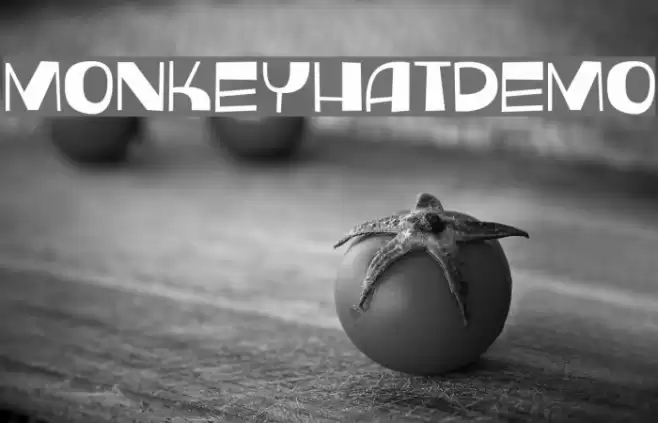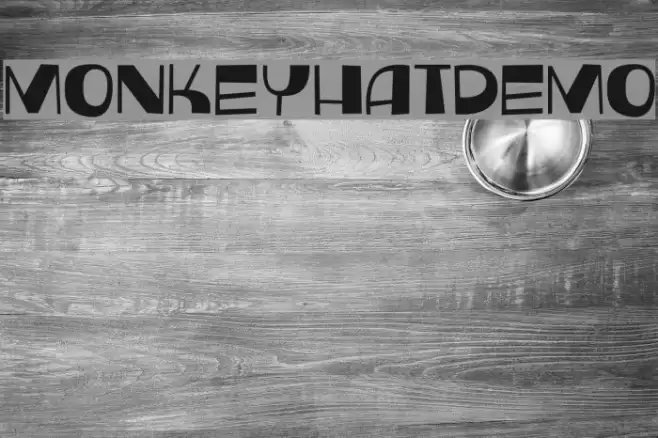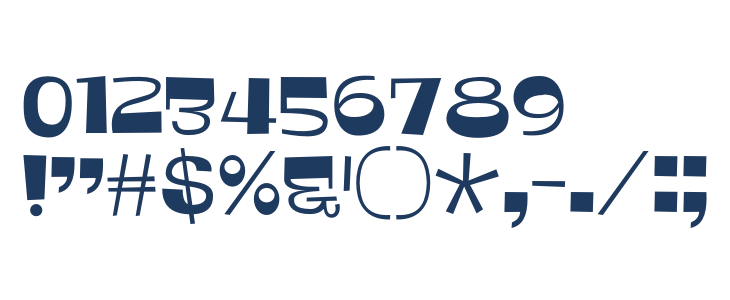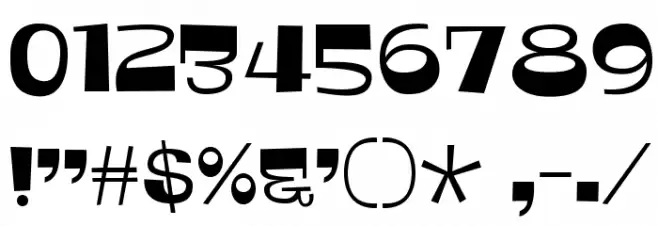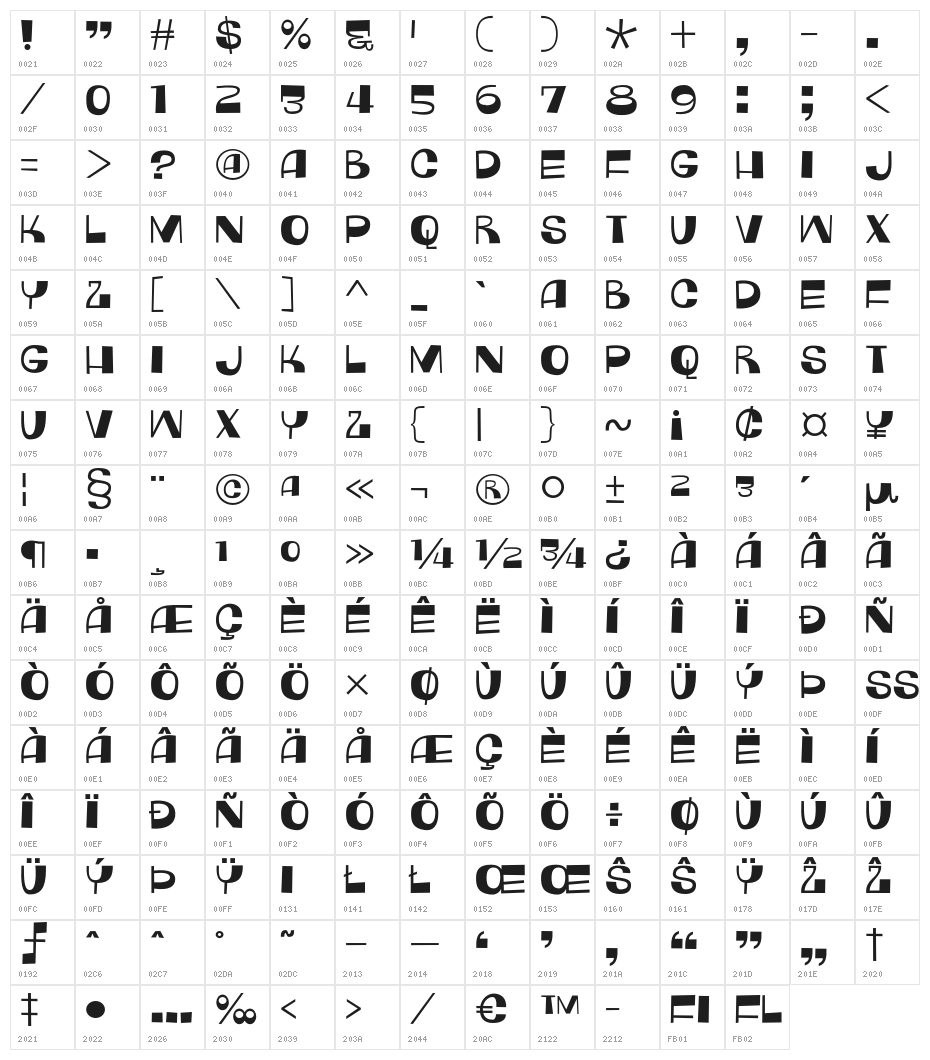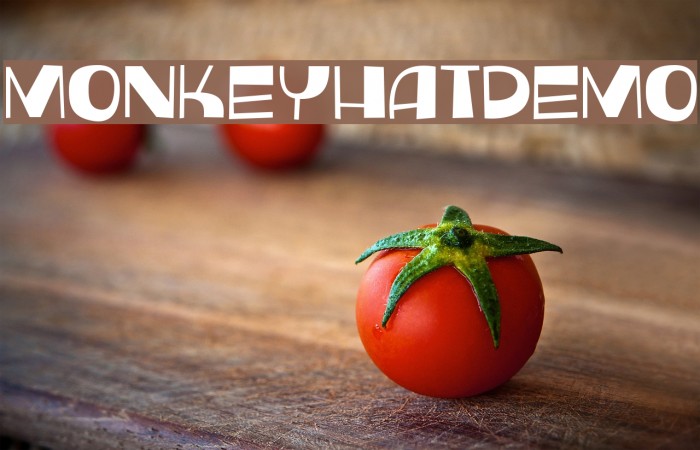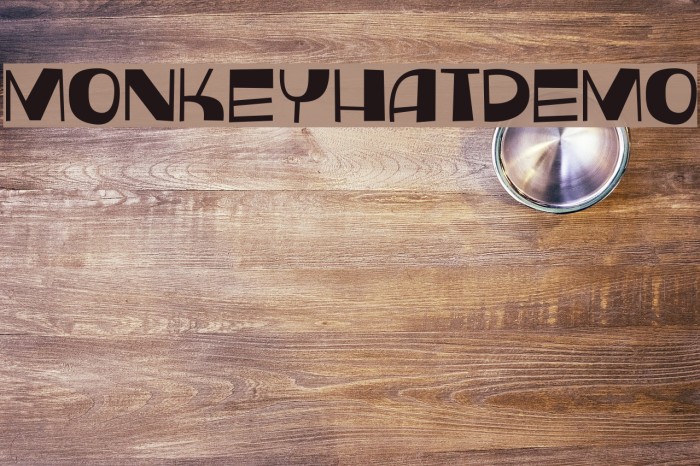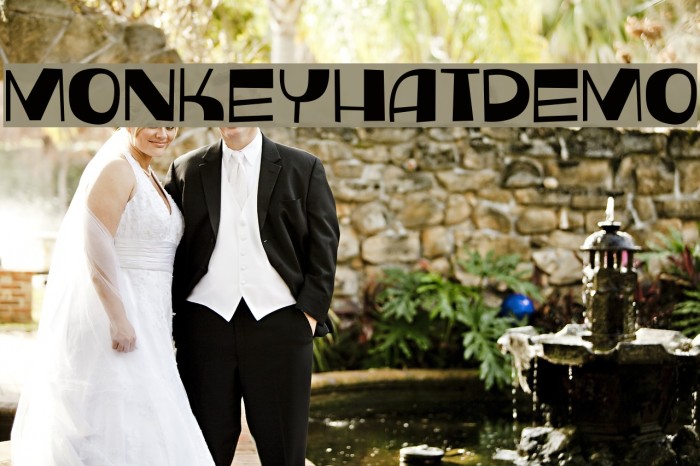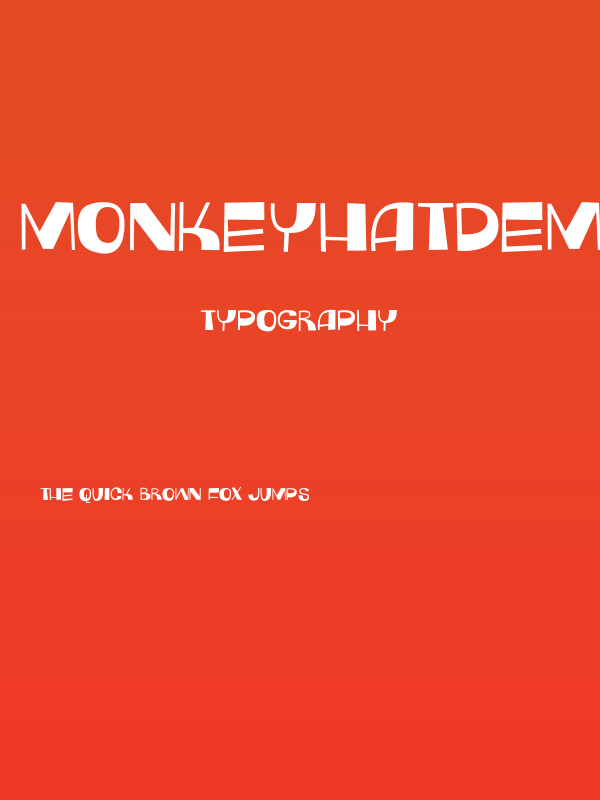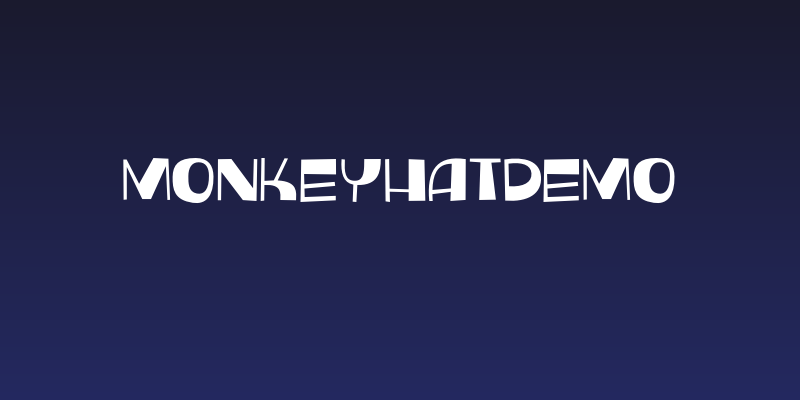
MonkeyHatDEMO Font
MonkeyHatDEMO Description
This font features a playful and bold design with a unique, quirky style. The letters are characterized by their exaggerated curves and varying stroke widths, creating a dynamic and lively appearance. The uppercase letters have a distinct, almost cartoonish quality, while the lowercase letters maintain a consistent whimsical flair. The numbers and special characters follow the same playful theme, making this font ideal for creative and informal projects. Its boldness and distinctiveness make it stand out, while the varying stroke thickness adds an element of surprise and fun.
A playful and bold font with quirky, exaggerated curves and varying stroke widths from Cartoon fonts.
- Proposed Projects: Ideal for children's books, playful branding, posters, and creative digital content.
- Overall Style: Playful, Quirky, Bold